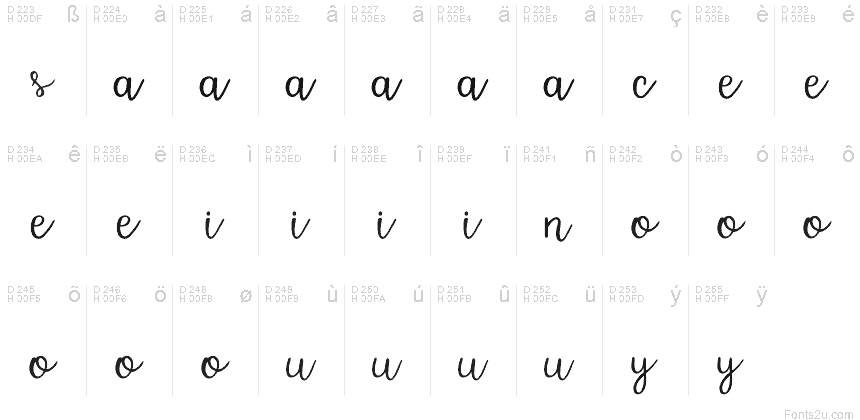
This is the demo version of my handwritten font 'Varsity'.
'Varsity' is perfect for greeting cards, branding, stationery design, social media, packaging, magazine layouts, prints and more. Happy designing!
Varsity
Julia Koschler